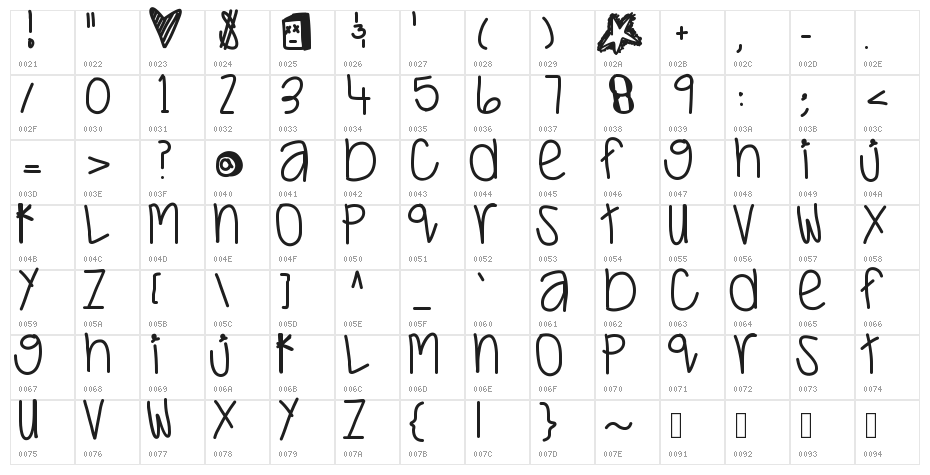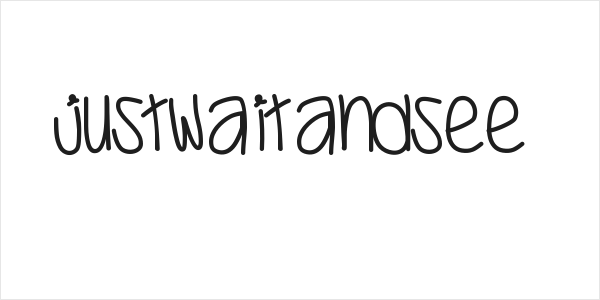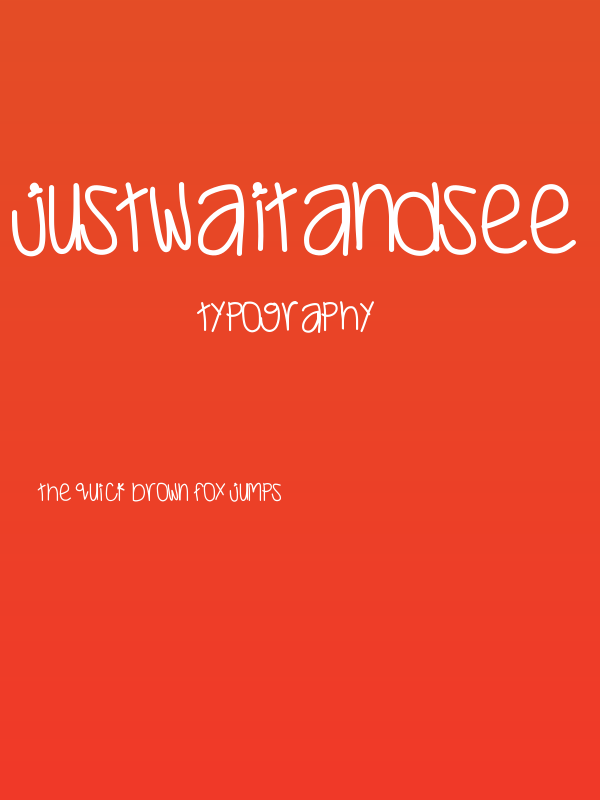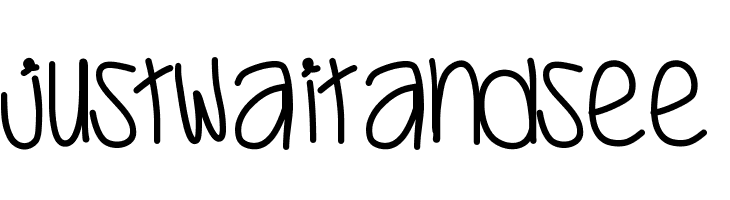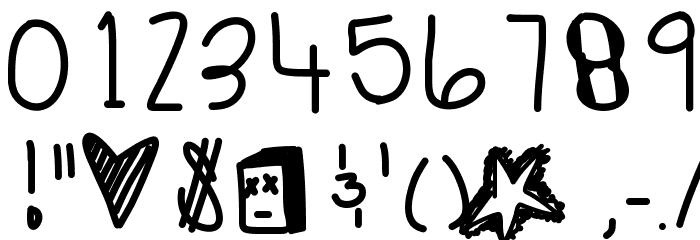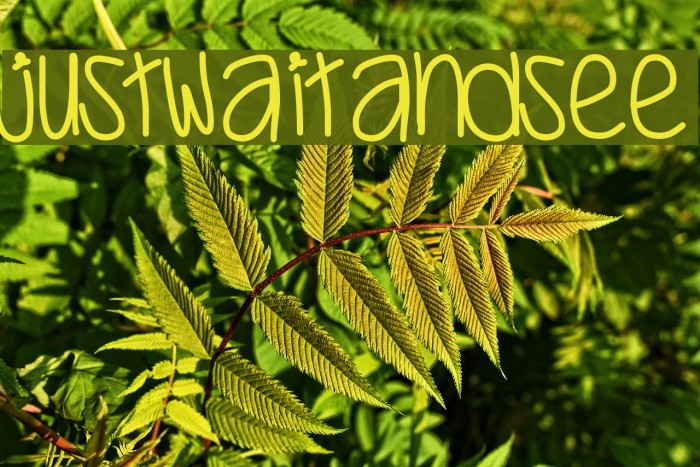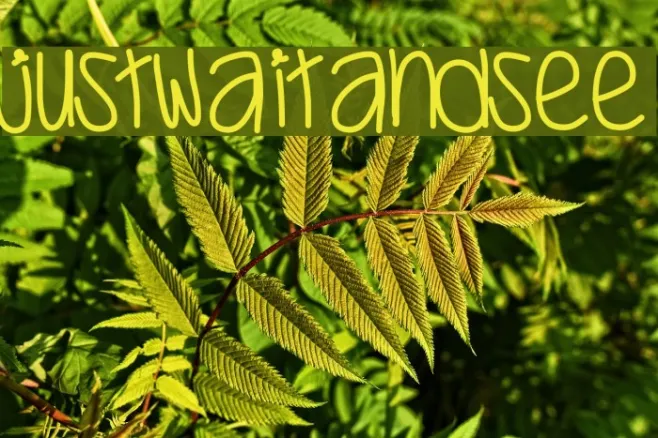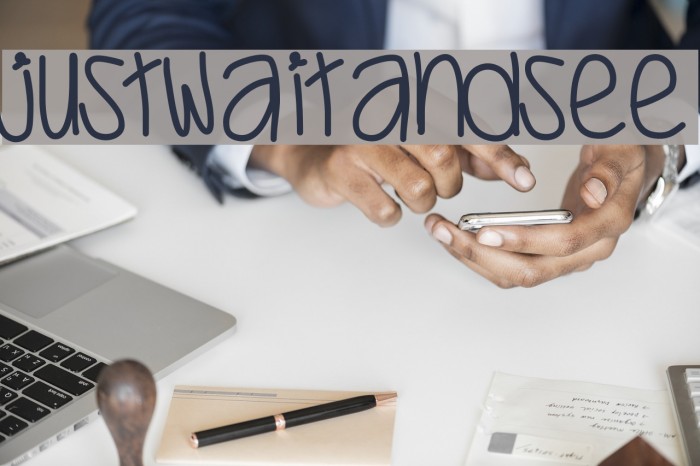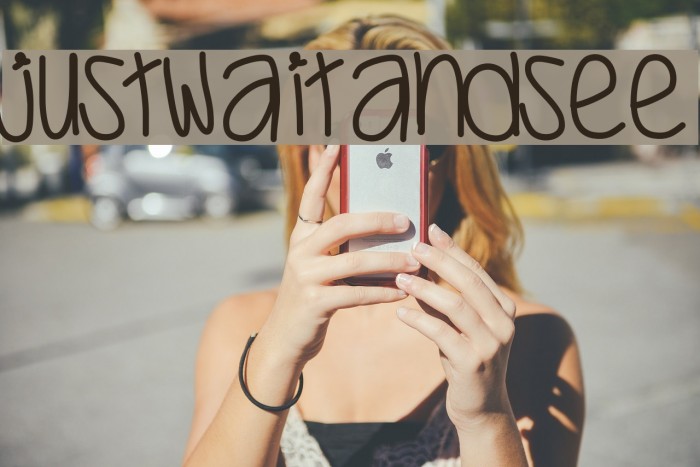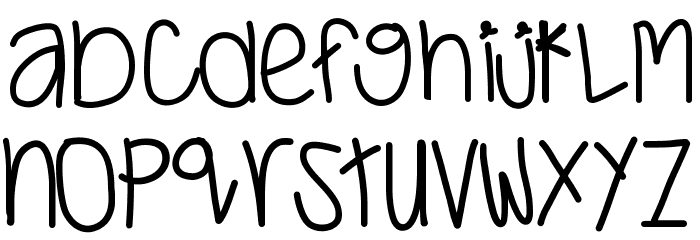
JustWaitAndSee Font
JustWaitAndSee Description
This playful and whimsical font features a handwritten style with a casual and informal appearance. The characters are slightly irregular, adding to the charm and uniqueness of the design. The strokes are consistent in thickness, giving it a uniform look despite its freeform nature. The letters have a rounded and soft quality, making them approachable and friendly. The numbers and special characters maintain the same playful aesthetic, ensuring a cohesive look across all elements. This font is perfect for projects that require a personal touch or a fun, lighthearted vibe.
| Overall Style | Whimsical |
| Proposed Projects | Ideal for greeting cards, children's books, playful branding, and casual invitations. |